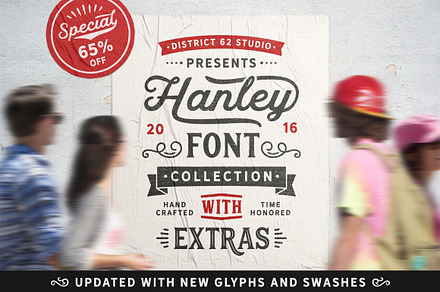
Hanley Font Collection
A font collection combining several related faces designed as a family group rather than as independent releases.
Related faces released together share underlying construction, which means they pair reliably in a way separately designed fonts rarely do.
- Shared underlying construction
- Alternates and ligatures
Where it works
- Brand identity systems
- Packaging and editorial design
- Signage and environmental graphics
- Web and app typography